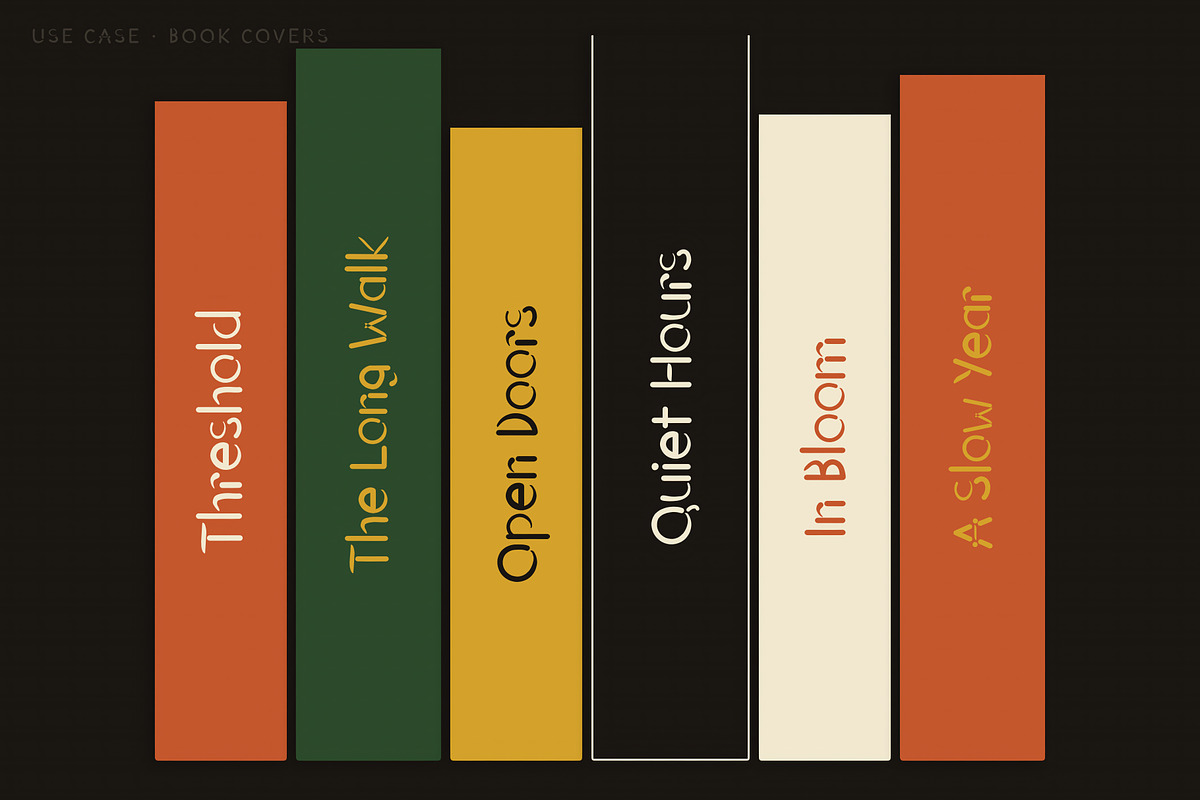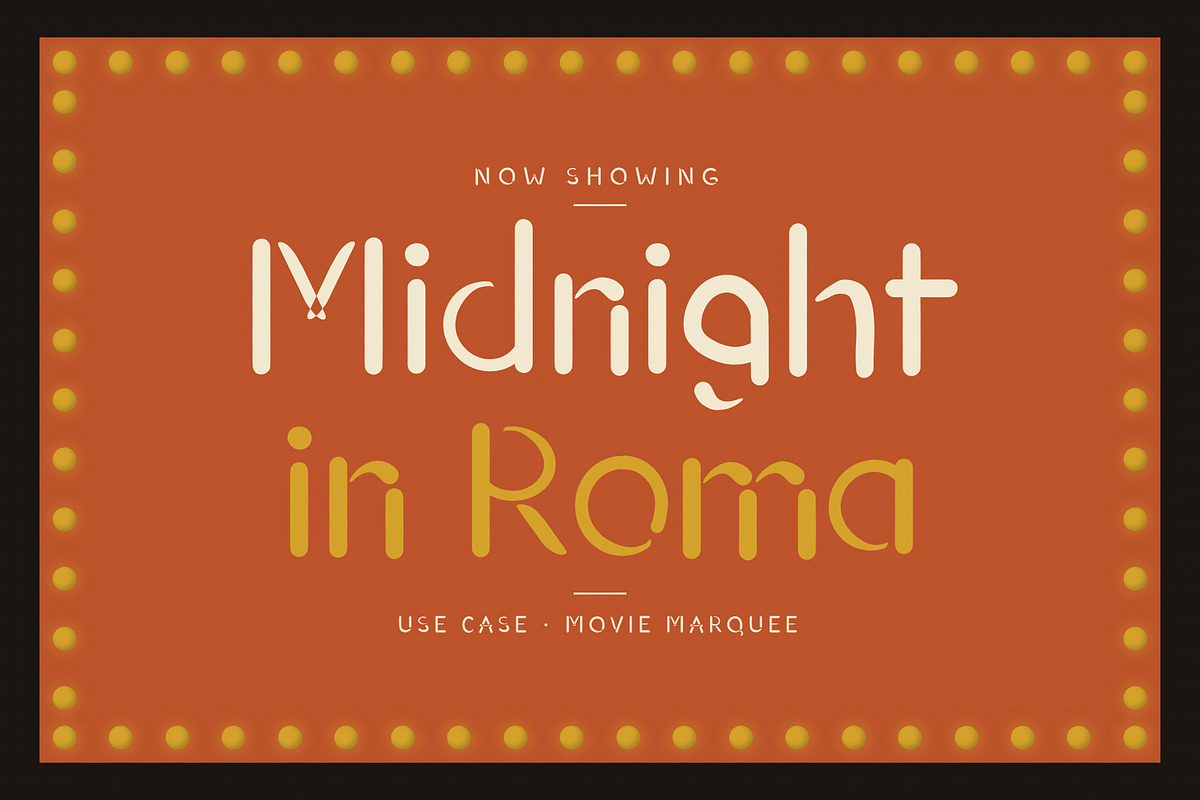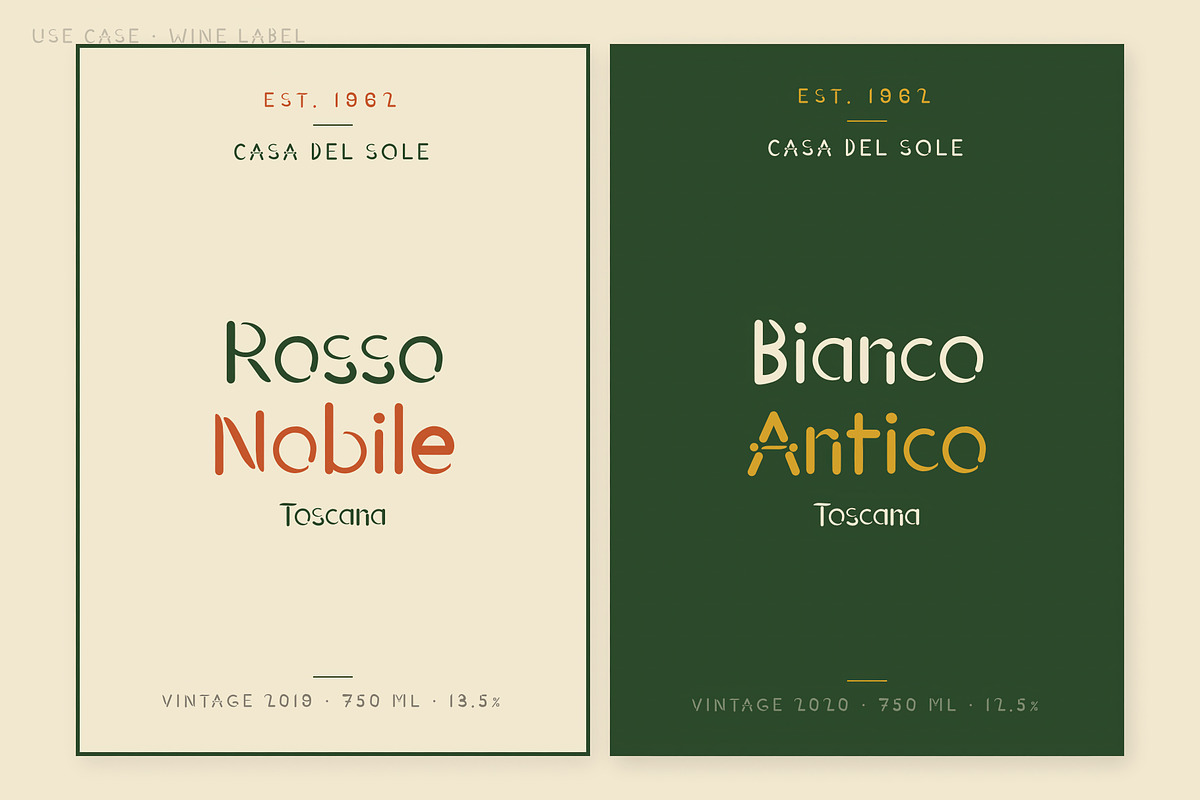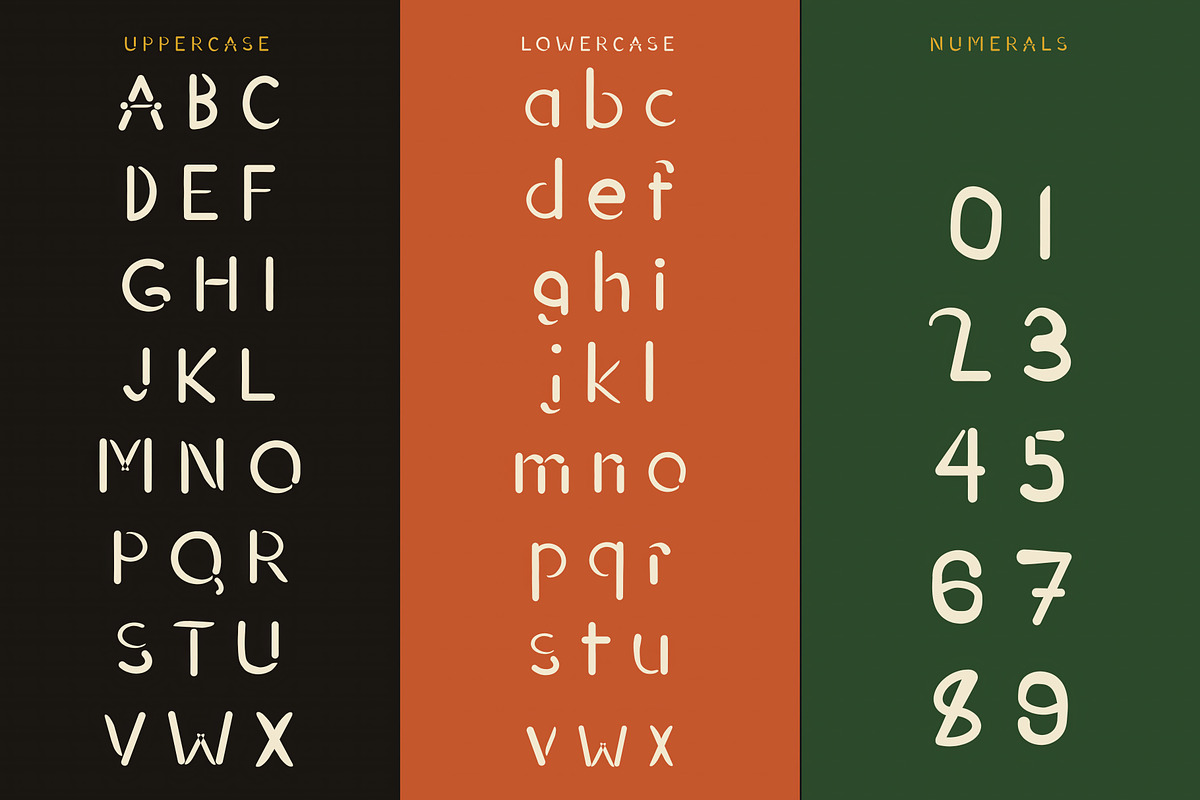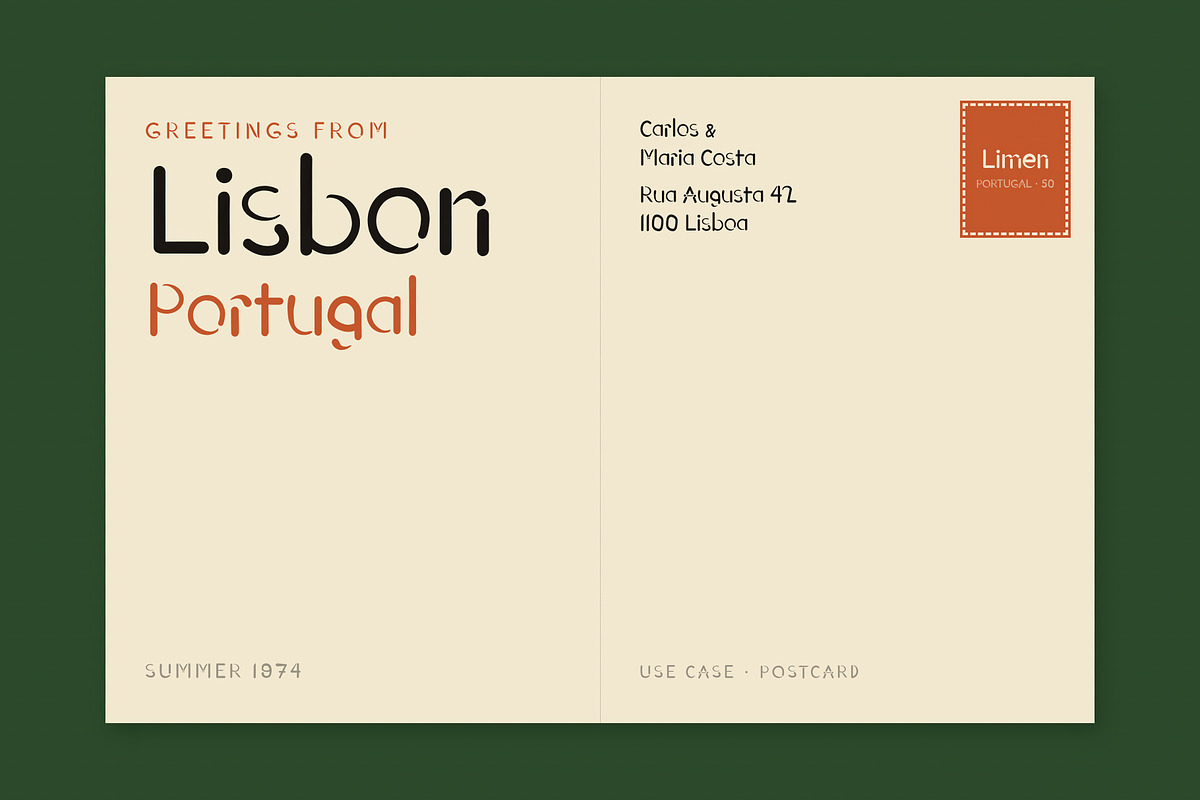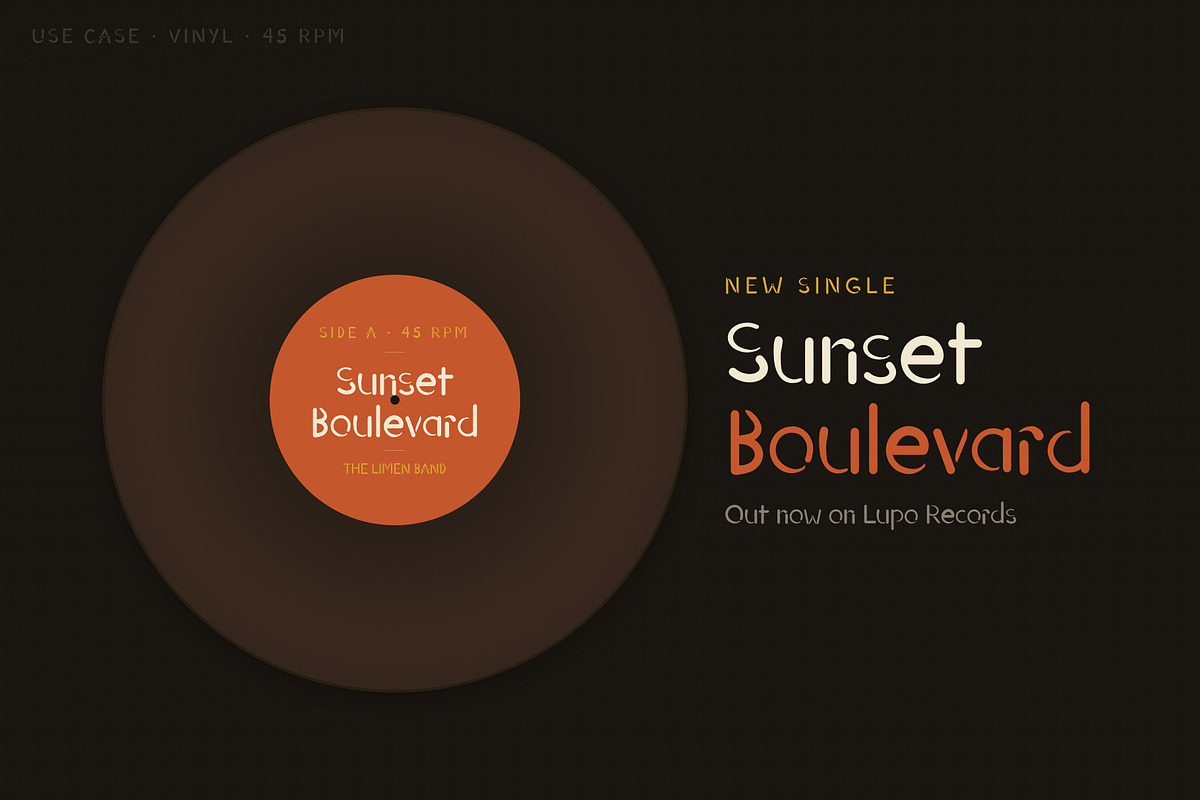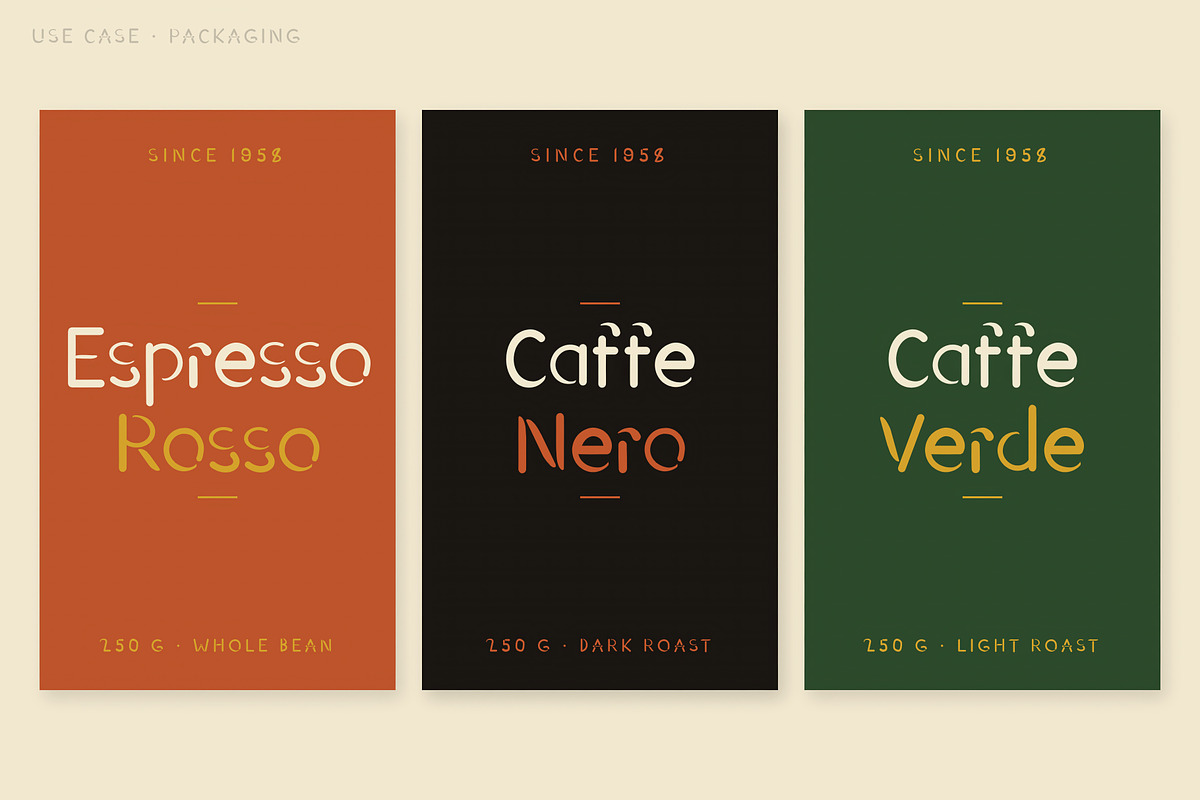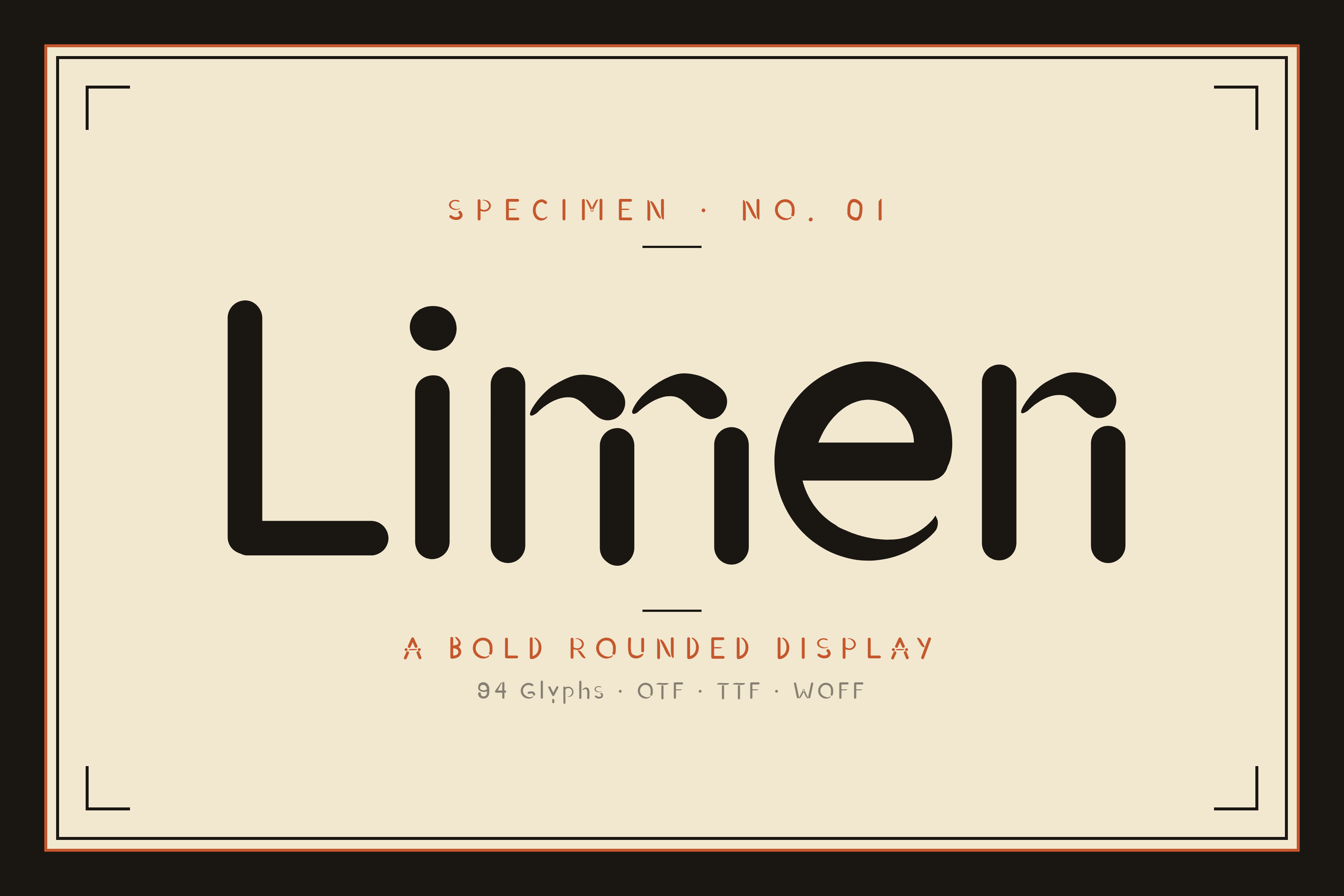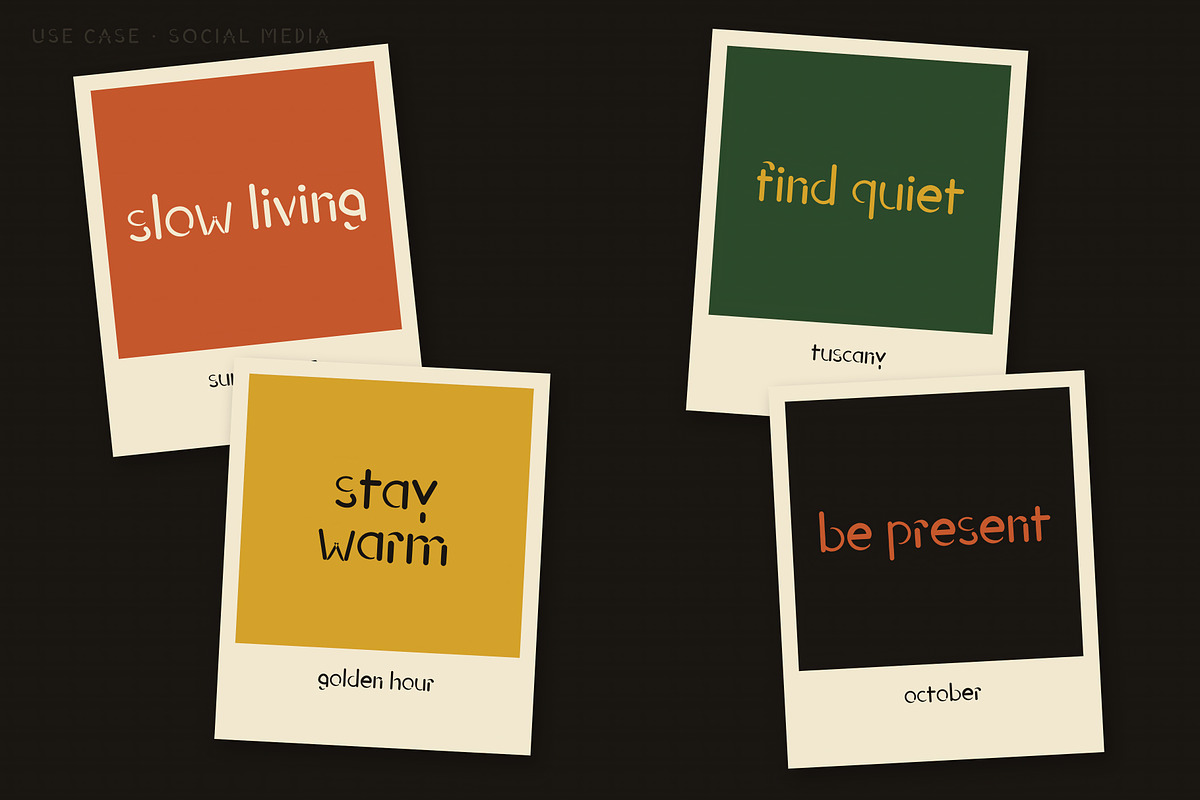
Limen — Bold Rounded Display Font
Introducing Limen — a bold rounded display font with quiet character details and a vintage editorial soul. Each letter has subtle interruptions and small accent marks that catch the eye without shouting. The result is a typeface that feels handcrafted, considered, and unmistakably its own.
Limen takes its name from the Latin word for "threshold" — that in-between space where one thing becomes another. It's the perfect font for brands that live in that space: timeless but modern, bold but refined, vintage but never costume.
PERFECT FOR:
- Wine labels & bottle packaging
- Italian restaurants & trattorias
- Coffee shops & specialty roasters
- Editorial magazines & lifestyle publications
- Movie posters & cinema branding
- Book covers & publishing
- Vintage-inspired postcards & stationery
- Music albums & vinyl record sleeves
- Boutique hotels & travel brands
- Matchbook covers & souvenir merch
- Apparel & streetwear graphics
- Logo design & brand identities
- Social media posts & stories
- Headlines & display typography
WHY LIMEN? Most display fonts are either too clean or too noisy. Limen sits in the threshold between them. The bold rounded letterforms feel friendly and approachable, but the small character details give it a vintage personality you don't usually find in modern display faces. It's the font you reach for when you want something that looks like it has a story — without being a costume. Whether it's a wine label, a movie poster, or a magazine cover, Limen brings warmth, authority, and old-world charm in equal measure.